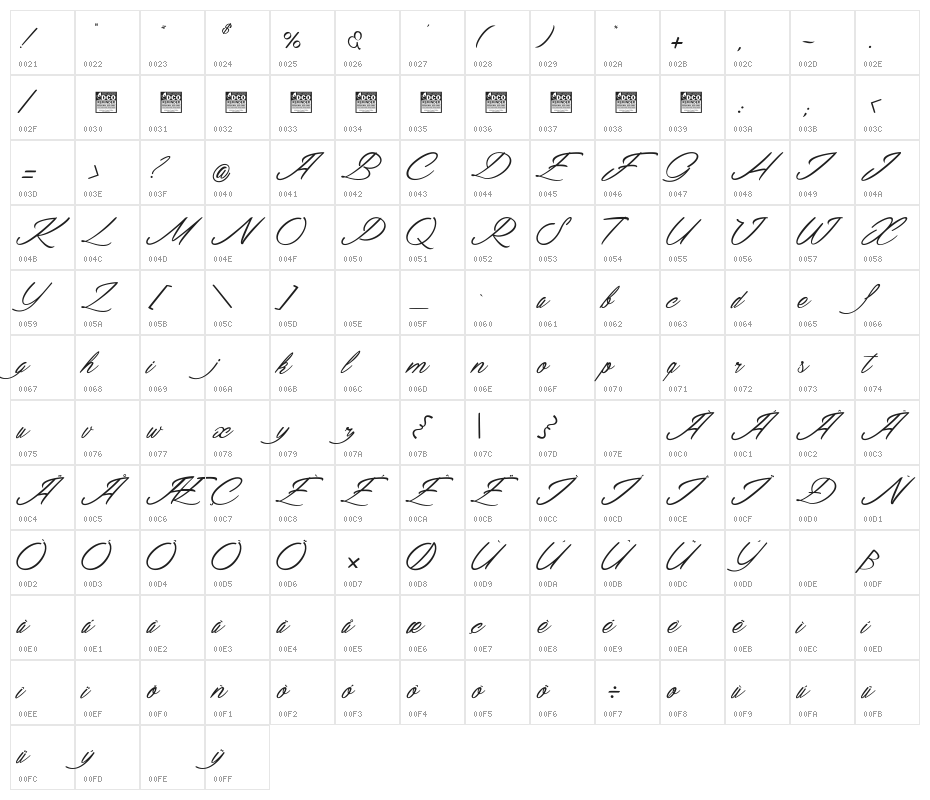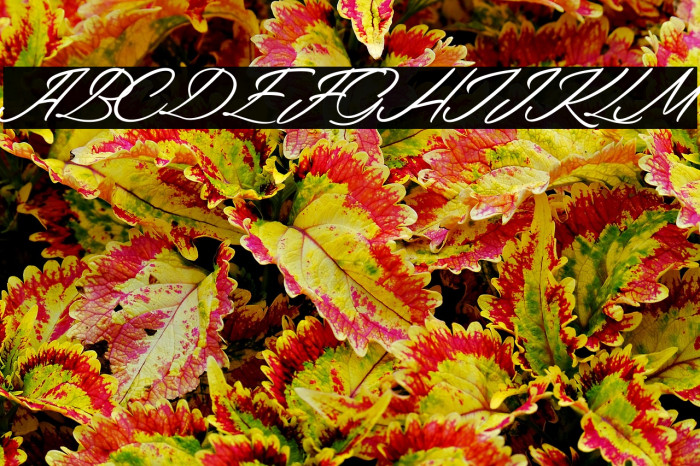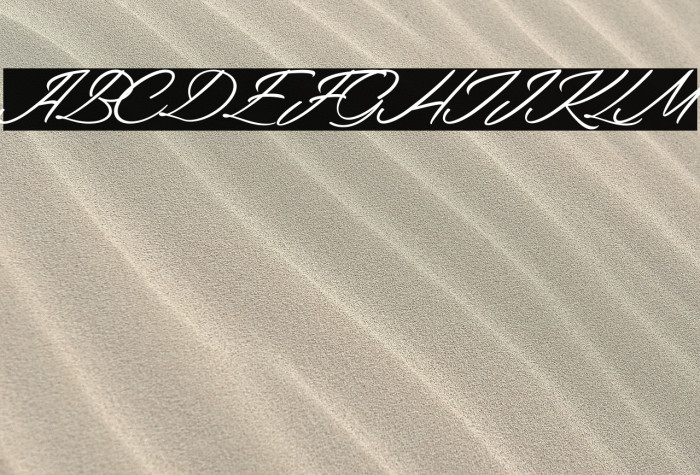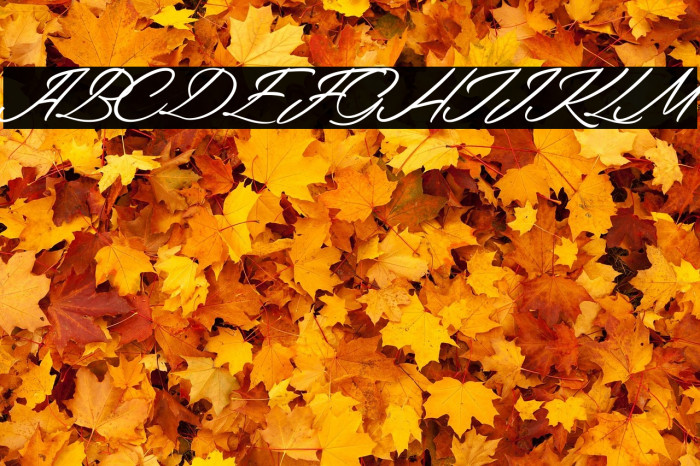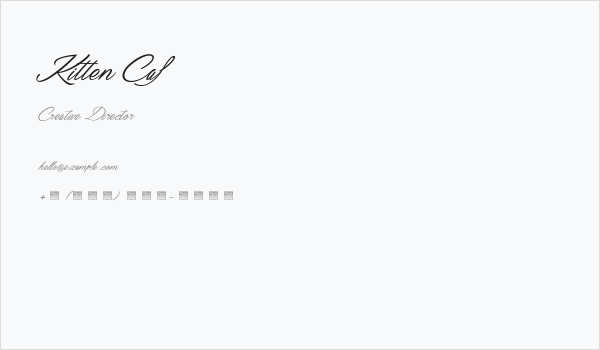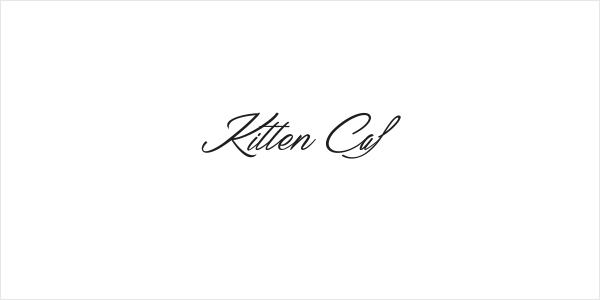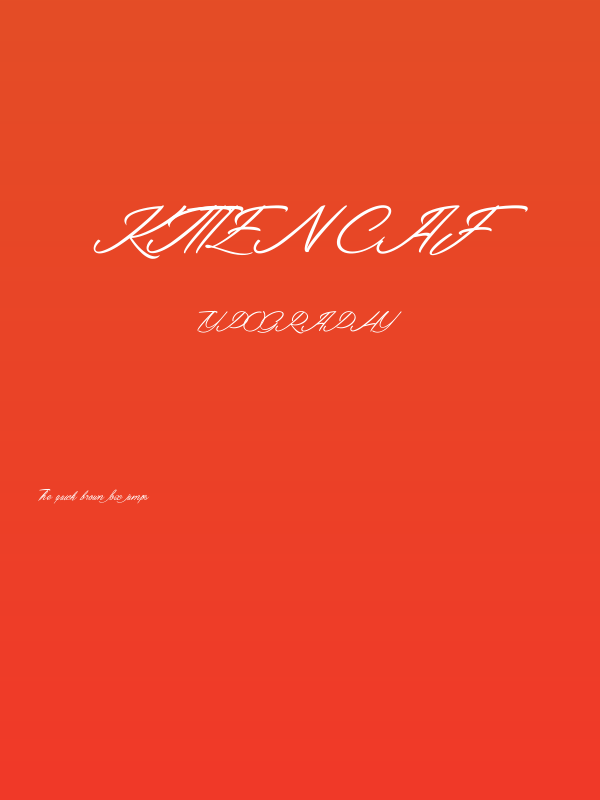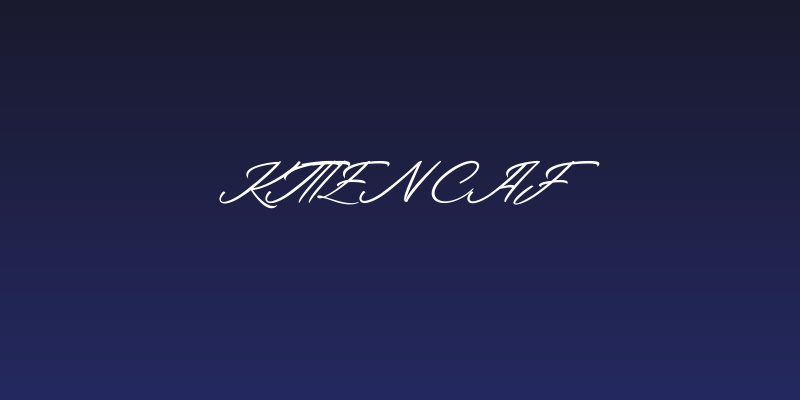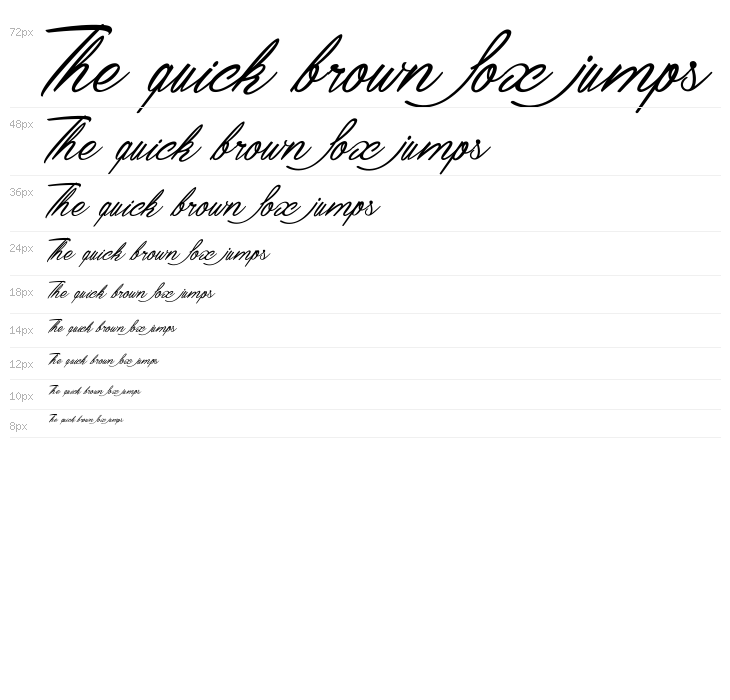
Kitten Caf Font
Kitten Caf Description
A flowing, elegant script font with connected, cursive letterforms and dramatic, sweeping ascenders and descenders. The strokes are consistent in thickness, giving it a handwritten, calligraphic appearance. The characters are slightly slanted, enhancing the sense of movement and sophistication.
| Overall Style | Decorative, Elegant, Handwritten |
| Use Case | Logos, Invitations, Decorative text, Short headlines |
| Proposed Projects | Invitations, greeting cards, branding for boutique shops, cafΓΒ© menus, personal signatures, decorative quotes. |